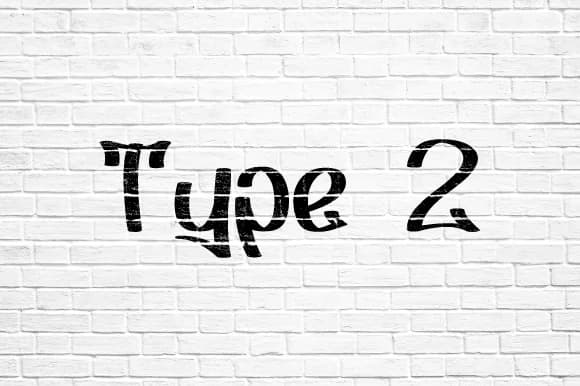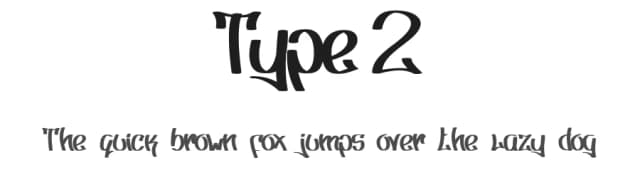
Nermin's Graffiti by Nermin K is a street-inspired display font that authentically captures the bold, dynamic energy of urban graffiti art and underground street culture. With its angular edges and exuberant letterforms, this typeface channels the unfiltered creativity and rebellious spirit of graffiti aesthetics, bringing raw character to designs that demand visual impact and unmistakable attitude. It's particularly effective for skateboard graphics and deck designs, underground music promotions, concert posters, graffiti-style poster art, and any visual project that celebrates authentic street culture and subculture identity.
Whether you're designing merchandise for edgy streetwear brands, creating hip-hop event flyers and promotional materials, developing band merchandise packaging, producing street art-inspired social media content, or working on independent publication layouts, Nermin's Graffiti delivers the unpolished authenticity that resonates deeply with audiences who appreciate genuine street culture. The font's edgy character and rebellious personality make it ideal for designs that intentionally reject polished corporate aesthetics in favor of raw, expressive energy and visual attitude that tells a story.
This display font works best as headline text where its personality can truly shine, bringing visual impact and graffiti authenticity to creative projects that embrace urban aesthetics and street culture identity. Get Nermin's Graffiti on Creative Fabrica and add genuine street attitude to your designs.
Nermin's Graffiti Font is a script font that shines as a display or heading face. Pair it with a clean sans-serif or serif font for body text β the contrast creates a clear hierarchy while the two styles stay balanced and easy to read.
Nermin's Graffiti Font
by Nermin K